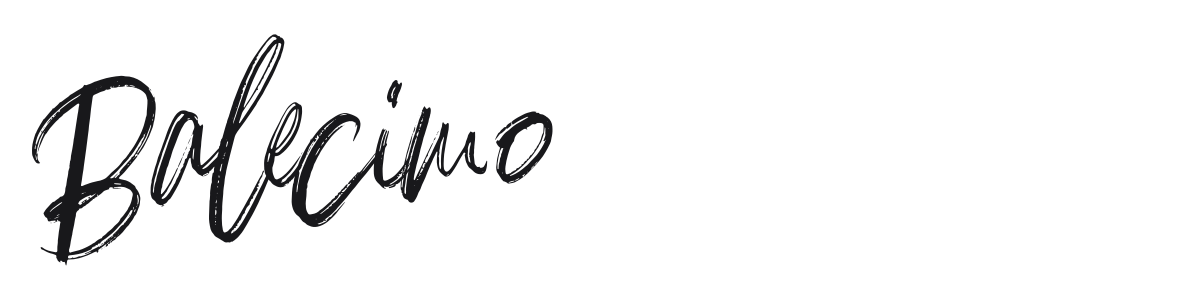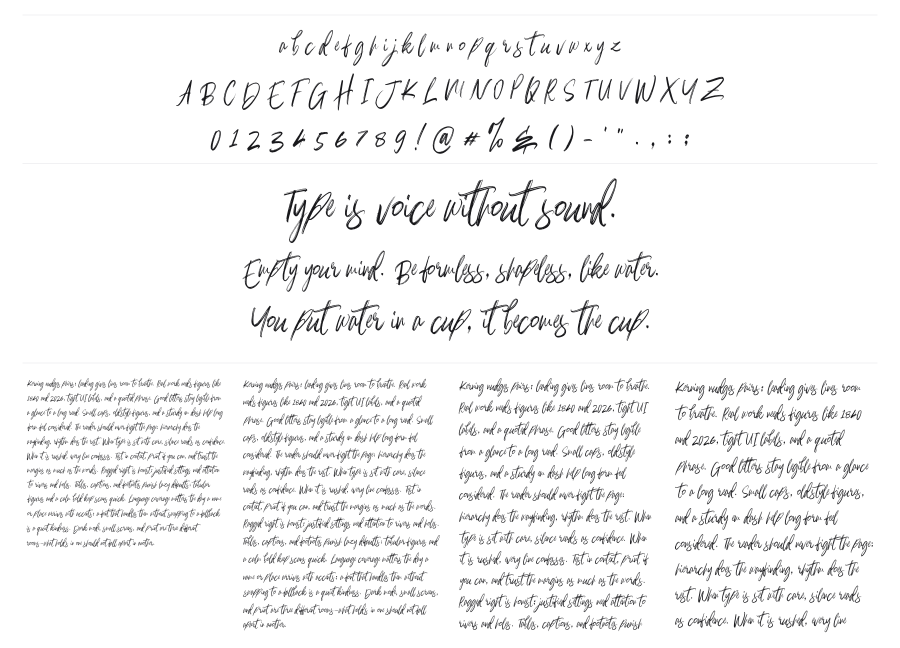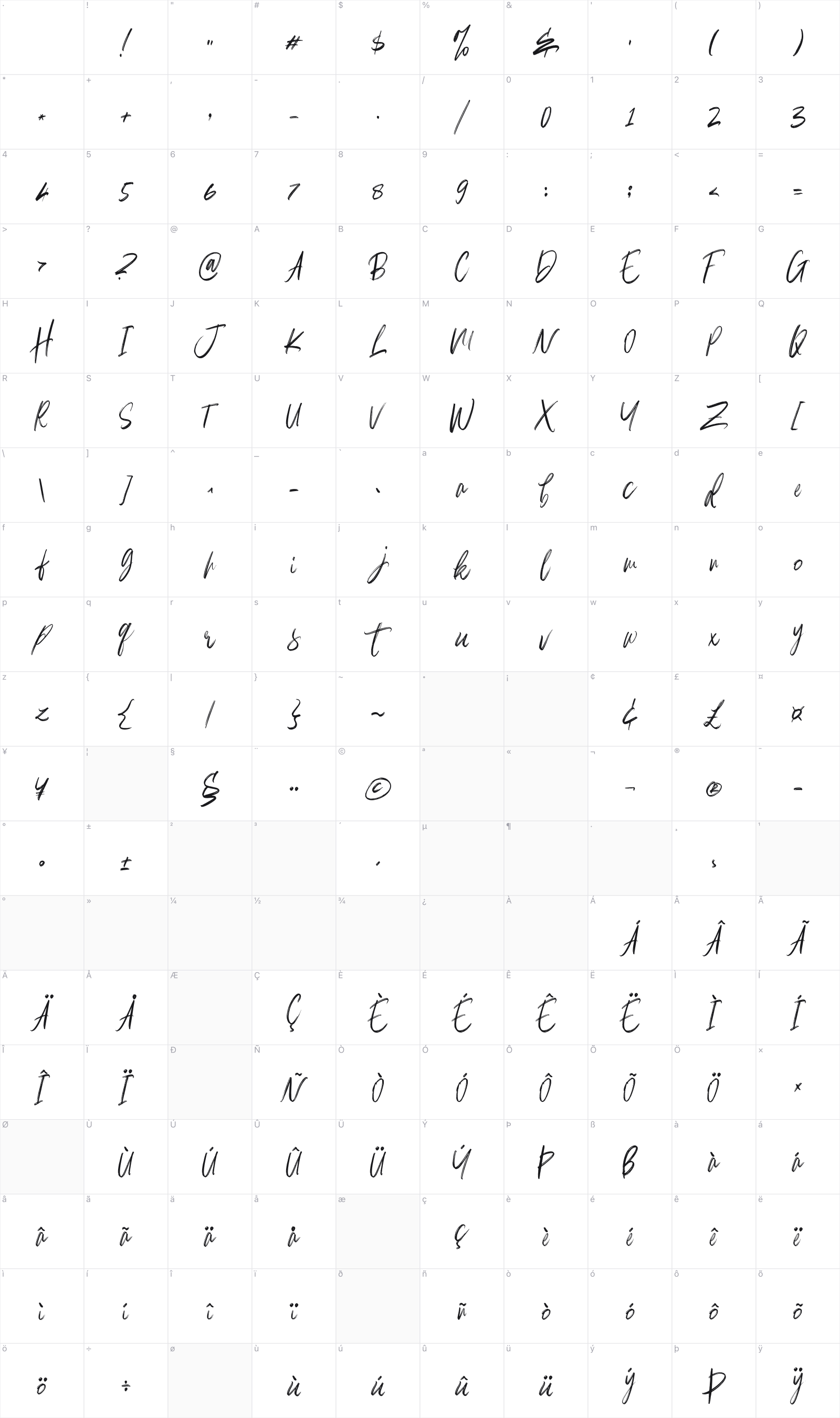
Balecimo
Balecimo is a textured brush script with bold, gestural strokes and the authentic drag of a real bristle brush. The ink-roughened edges and dramatic contrast between thick stems and thin hairlines give it an energetic, handcrafted feel. It reads best large, where the texture and motion come through most clearly.